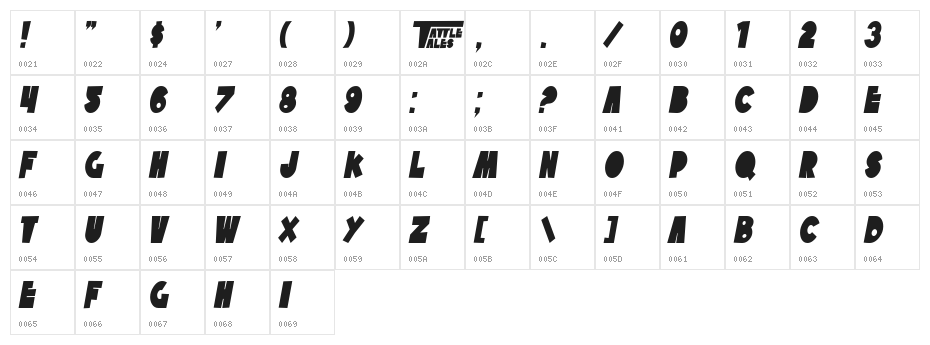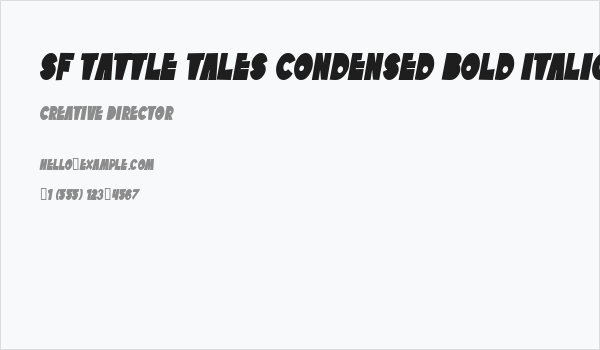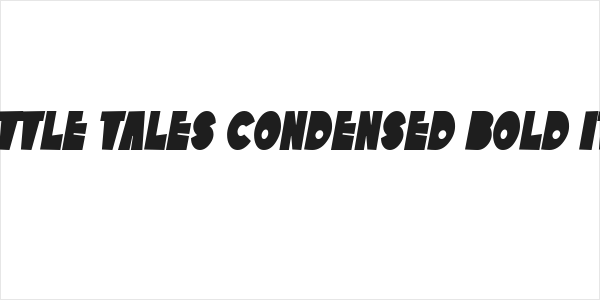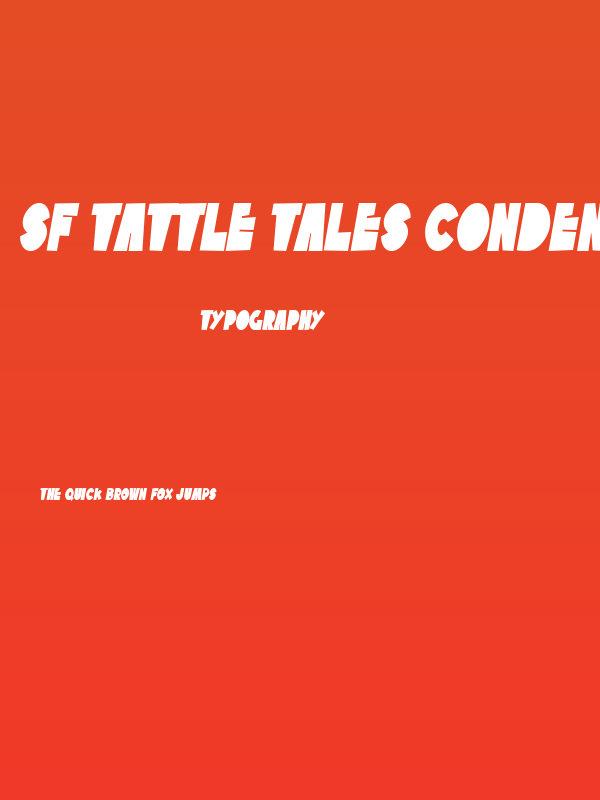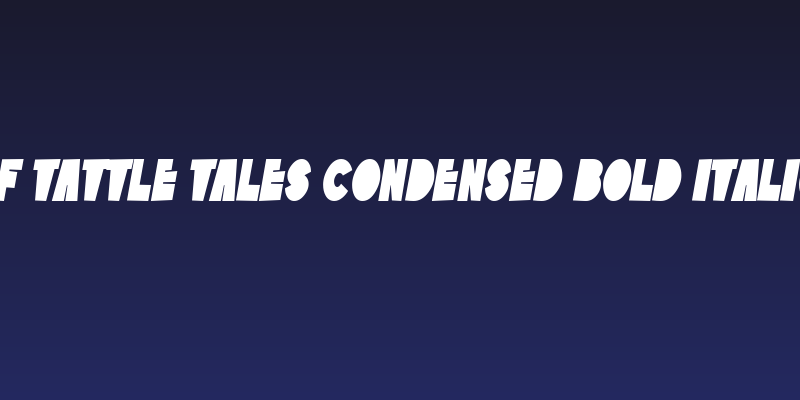
SF Tattle Tales Condensed Bold Italic Font
SF Tattle Tales Condensed Bold Italic Description
This font showcases a bold and dynamic style with a condensed and italicized form. The characters are robust and impactful, featuring sharp angles and a slight slant that adds a sense of motion and urgency. The uppercase letters are particularly striking, with a strong presence that demands attention. The lowercase letters maintain the same boldness, ensuring consistency across the typeface. Numbers are equally bold, making them suitable for impactful displays. Special characters are designed to match the overall aesthetic, providing a cohesive look. The font's condensed nature allows for efficient use of space, making it ideal for headlines and titles where space is limited but impact is necessary.
Proposed ProjectsIdeal for eye-catching headlines, posters, branding projects, and any design requiring a strong visual impact.